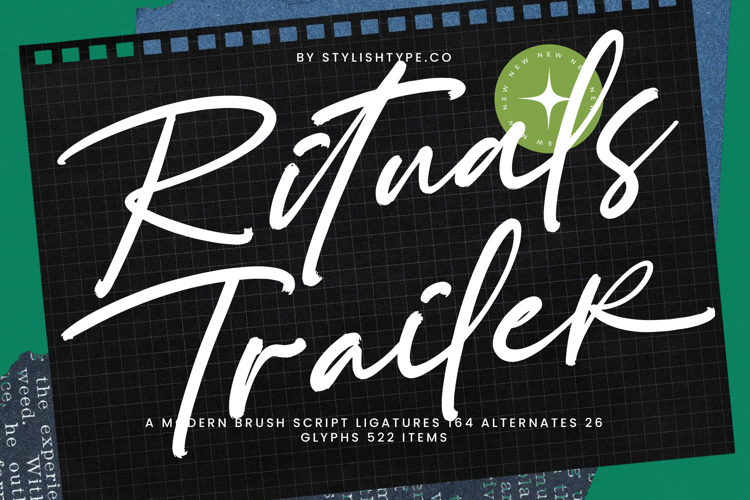
Rituals Trailer - Modern Brush Script
Unleash maximum creative impact with the expressive flow of Rituals Trailer - Modern Brush Script. This stunning typeface captures the raw energy of genuine brushwork, blending artistic imperfection with polished readability. Its organic shapes and dramatic high-contrast weight transitions deliver an instant sense of authentic movement, making it the perfect choice for designs that demand to be noticed. It is engineered for headline superiority in any visual context.